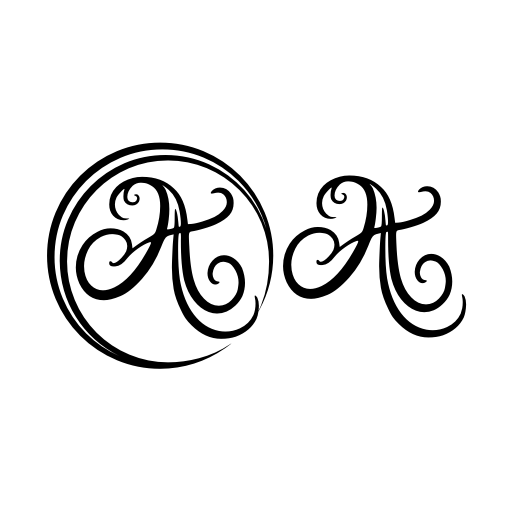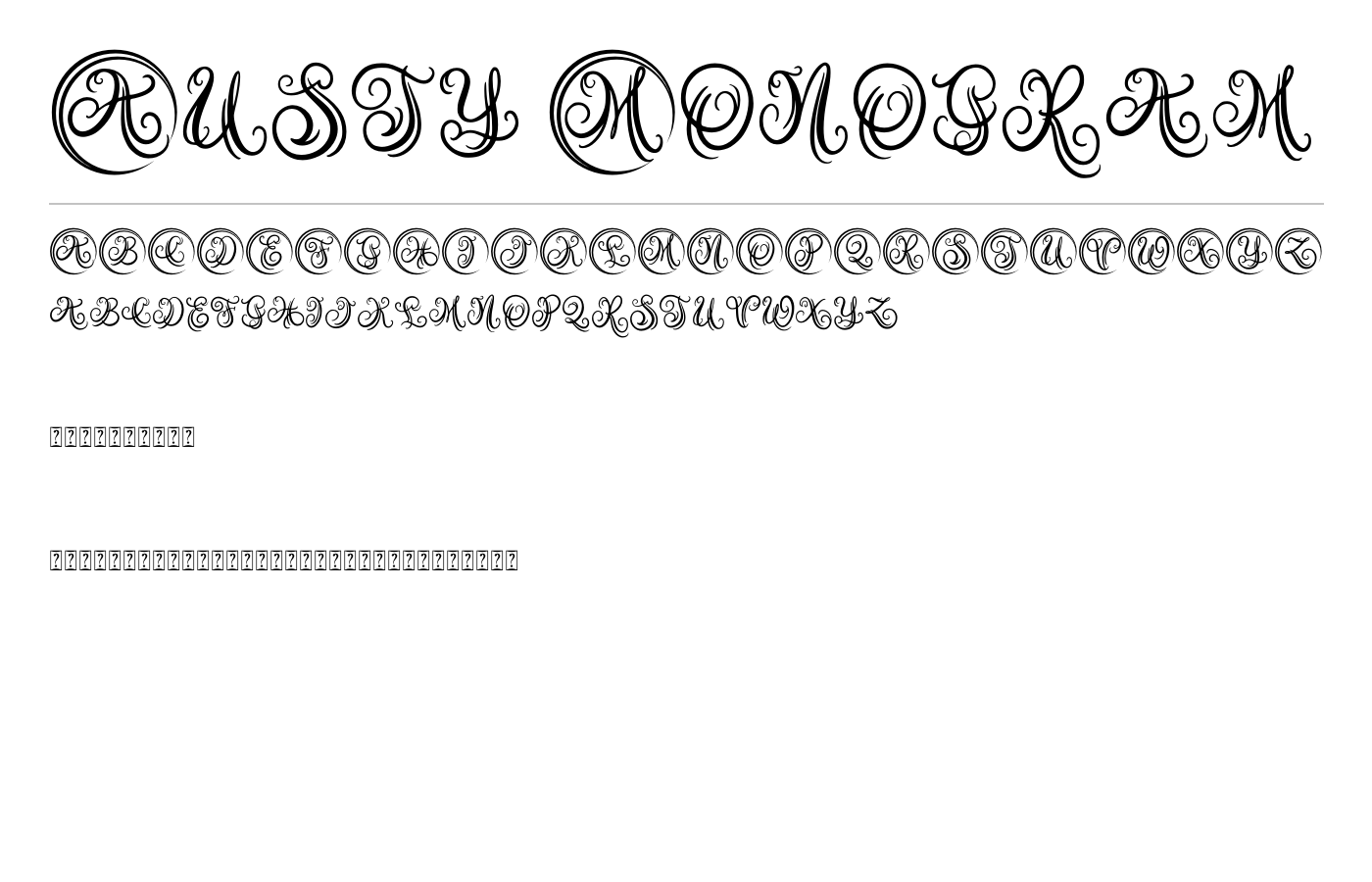
Austy Monogram Font is a decorative, script-inspired typeface featuring elegant, swirling letterforms with high contrast and thin, intricate strokes. Its ornate and stylized design, including enclosed circular variants for monogram use, makes it perfect for sophisticated branding, wedding invitations, and luxury packaging where a refined, vintage charm is desired. This font stands out in logos or headlines, adding a touch of classic elegance and artistic flair.
Austy Monogram Font
About Austy Monogram Font
| Font family | Austy Monogram Font |
| Designer | Panggah Laksono @ Abo Daniel Studio |